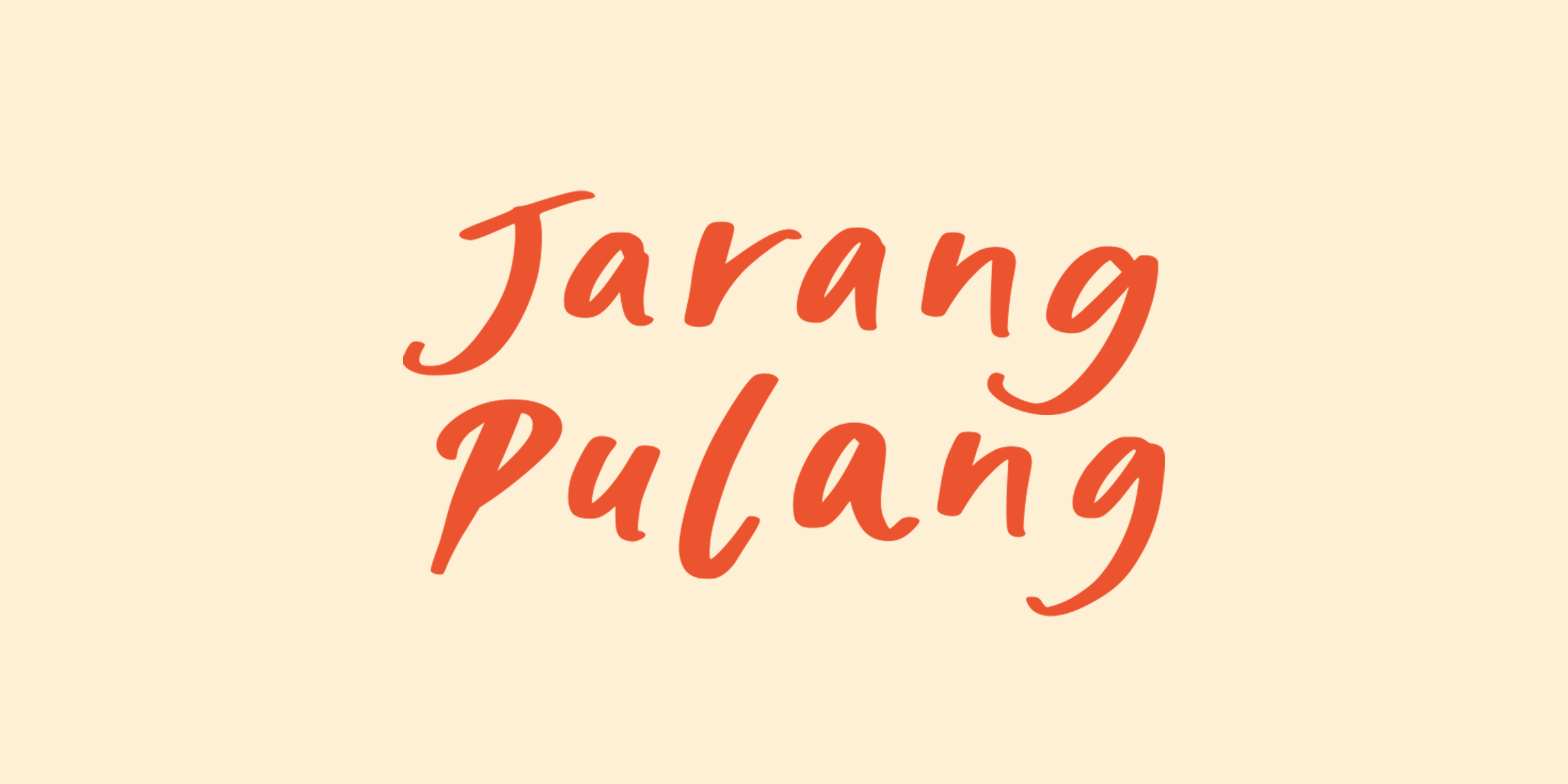
Jarang Pulang Font is perfect for restaurant menus, food packaging, culinary branding, cookbook covers, coffee shop signage, artisanal product labels, handmade craft projects, vintage-inspired designs, organic food brands, and any project that requires an authentic, handcrafted typography approach.
What makes Jarang Pulang Font exciting is its distinctive handwritten character that brings warmth and personality to any design project. This unique typeface captures the essence of traditional craftsmanship with its organic flow and natural irregularities, making it an exceptional choice for brands seeking to convey authenticity and human touch. The font's casual yet refined appearance creates an inviting atmosphere that resonates with audiences looking for genuine, personal connections.
Jarang Pulang Font family includes various stylistic alternates and ligatures, providing designers with creative flexibility to customize their typography. The font family offers multiple character variations, swashes, and decorative elements that enhance the handcrafted aesthetic and allow for unique typographic compositions.
Whether you're designing for local businesses, artisan brands, or creative ventures, Jarang Pulang Font Free Download delivers the authentic charm and visual appeal that contemporary design projects demand. Its versatile nature makes it suitable for both digital applications and print materials, from social media graphics to packaging design.
The font's approachable style and readable letterforms ensure effective communication while maintaining artistic flair. With Jarang Pulang Font, your designs will stand out with genuine character and memorable visual impact across all creative applications.